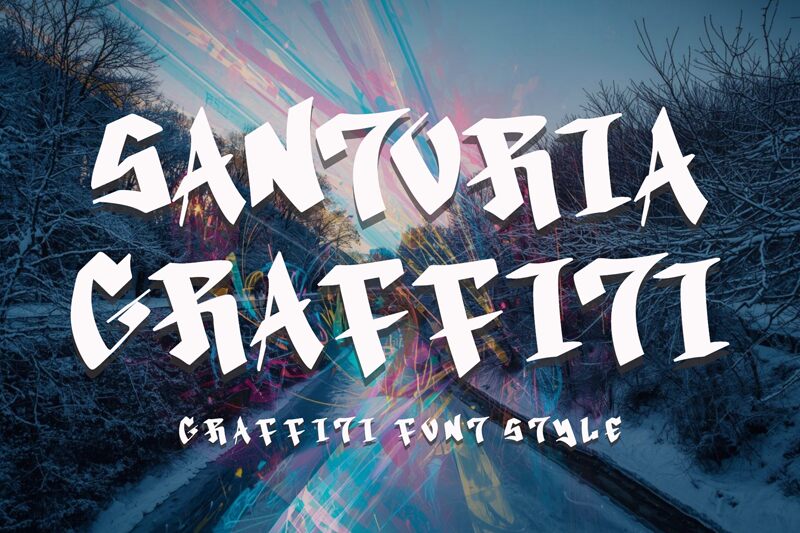
Santoria Graffiti font by Yoga Letter is a graffiti-inspired free font. With an urban and edgy style, this typeface incorporates the vibrant and dynamic essence of graffiti art. Each curve and angle is designed to make a bold presence, which is perfect for anyone needing to infuse a touch of artistic chaos in their projects.
This contemporary font is the perfect solution for music albums, movie titles, magazine covers, package design, social media posts, sports-themed material, and more. Additionally, it is ideal for posters and banners, book covers, apparel designs, and logo designs for brands.